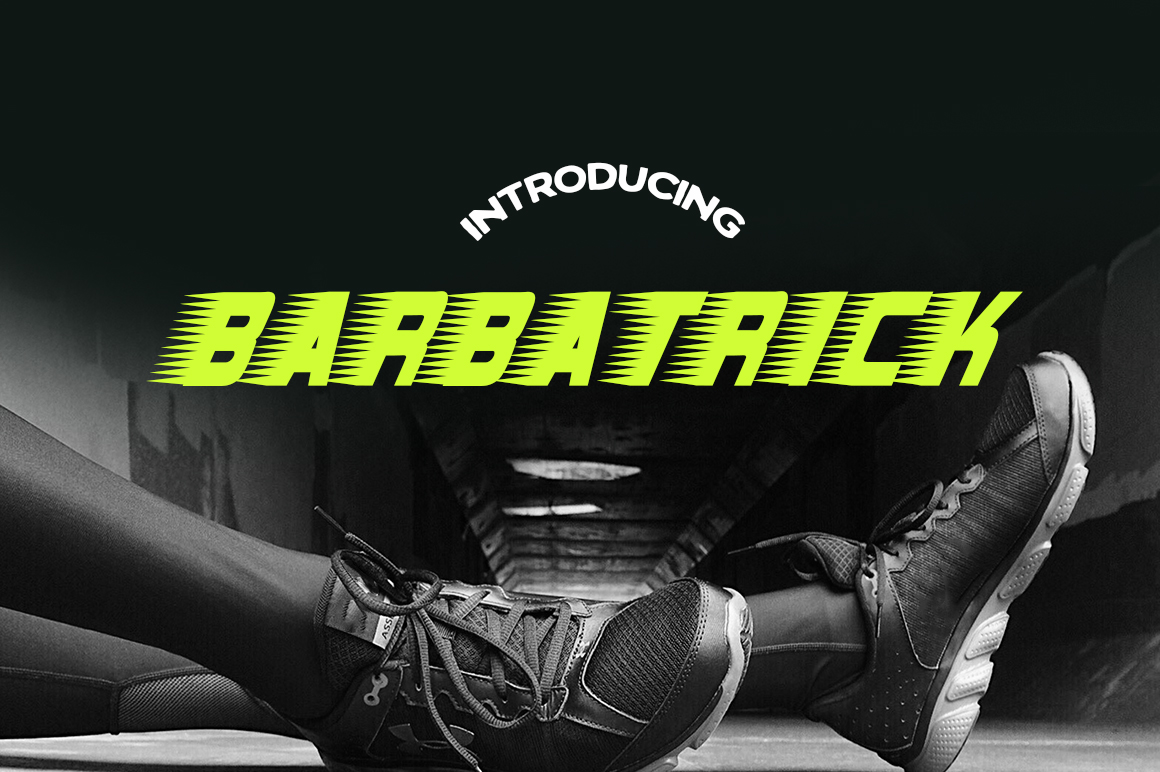
HomePersonal Use FreeBarbatrick Personal Use Free Barbatrick FacebookTwitterPinterestWhatsApp 1 of 1 About Barbatrick Font Barbatrick is an edgy free font from Typodermic; meant to simulate speed lines pointed by the wind, this decorative all caps font is ideal for sports themes and more. DOWNLOAD NOW People also explored Selfies Font Handmade Valentine Font Pinelatte Font Terrazzo 1.0 Font Lovers Font Simple Wedding Font Bofly Font Xanas Wedding Malino Candy Font 180 0 TagsBarbatrick Font Previous articleZero HourNext articleAirmole LEAVE A REPLY Cancel reply Comment: Please enter your comment! Name:* Please enter your name here Email:* You have entered an incorrect email address! Please enter your email address here Website: Save my name, email, and website in this browser for the next time I comment. Personal Use Free Heart Personal Use Free Read more about this font Ardilla Font Personal Use Free Read more about this font Sushi Stroke Personal Use Free Read more about this font Bolt Electric Personal Use Free Read more about this font BLOG Free vs Paid Fonts: Why Investing in Premium Fonts Is Worth It Free vs Paid Fonts: Why Premium Fonts Are Worth It in 2025 The debate of free vs paid fonts continues in the design world. While... Where to Buy American Fonts Online in 2024 Elegant Wedding Invitation Fonts – Handwritten & Script Fonts Using Fonts in Digital Marketing: Tips to Strengthen Your Brand Identity